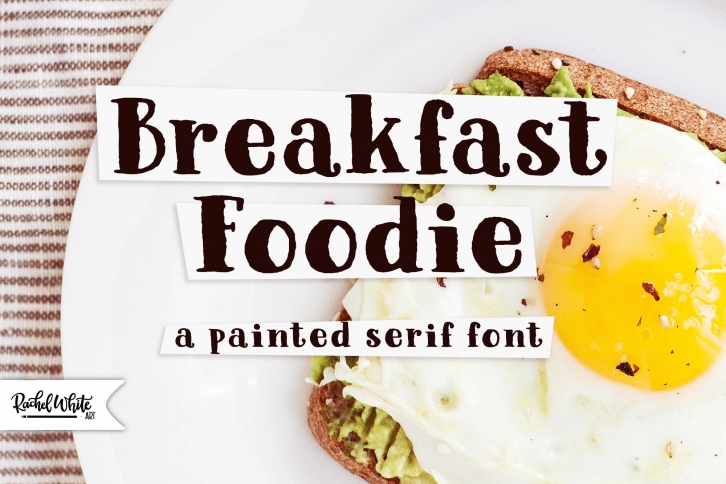
Breakfast Foodie, a painted serif is a beautiful font that was designed by Rachel White Art. It's a great choice for designers and creatives who need such a font. It was released on November 16, 2020 and the file size is 9.84 MB. Breakfast Foodie, a painted serif may give a more youthful, expressive and casual look to your project. It is a very beautiful, refined, elegant, and high-quality font.